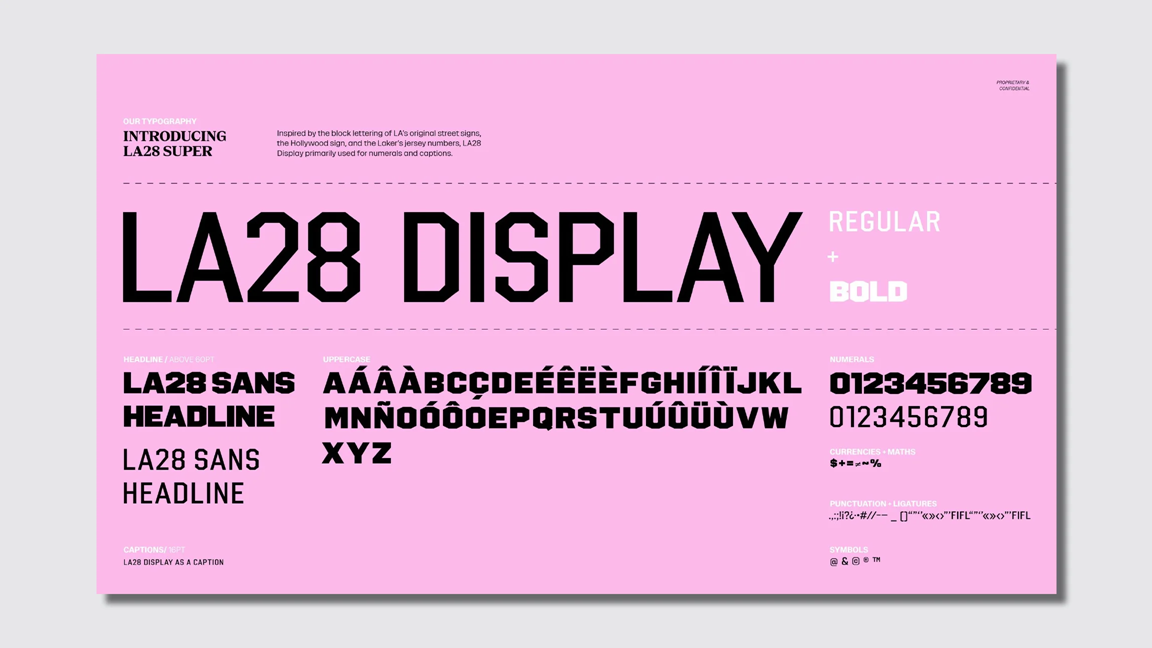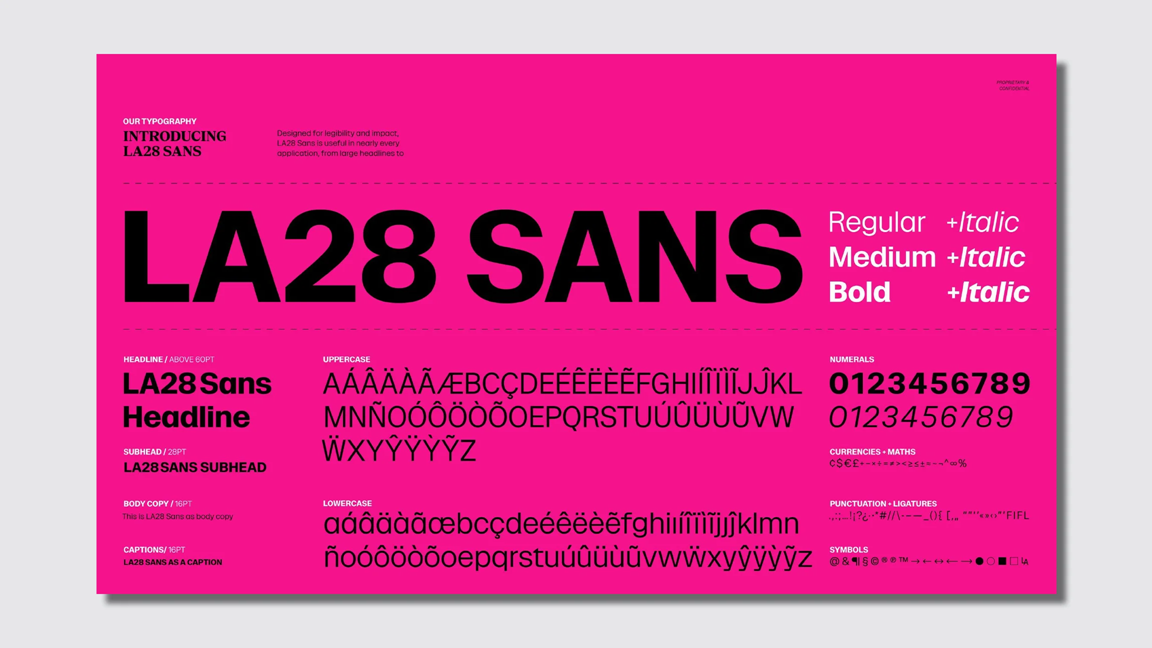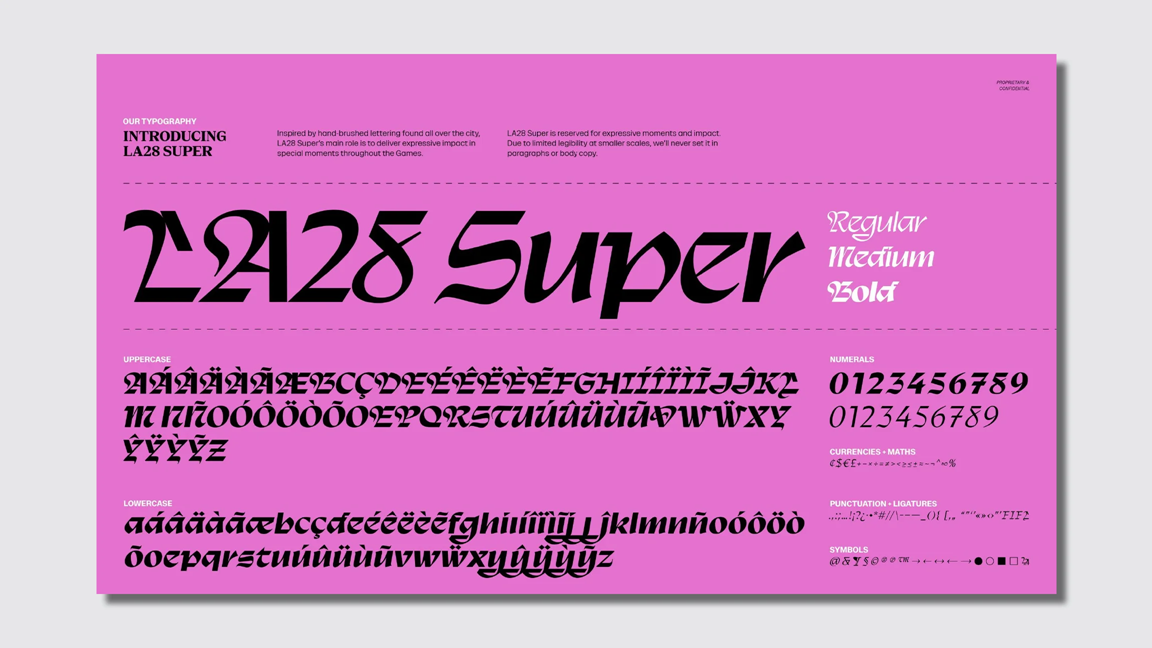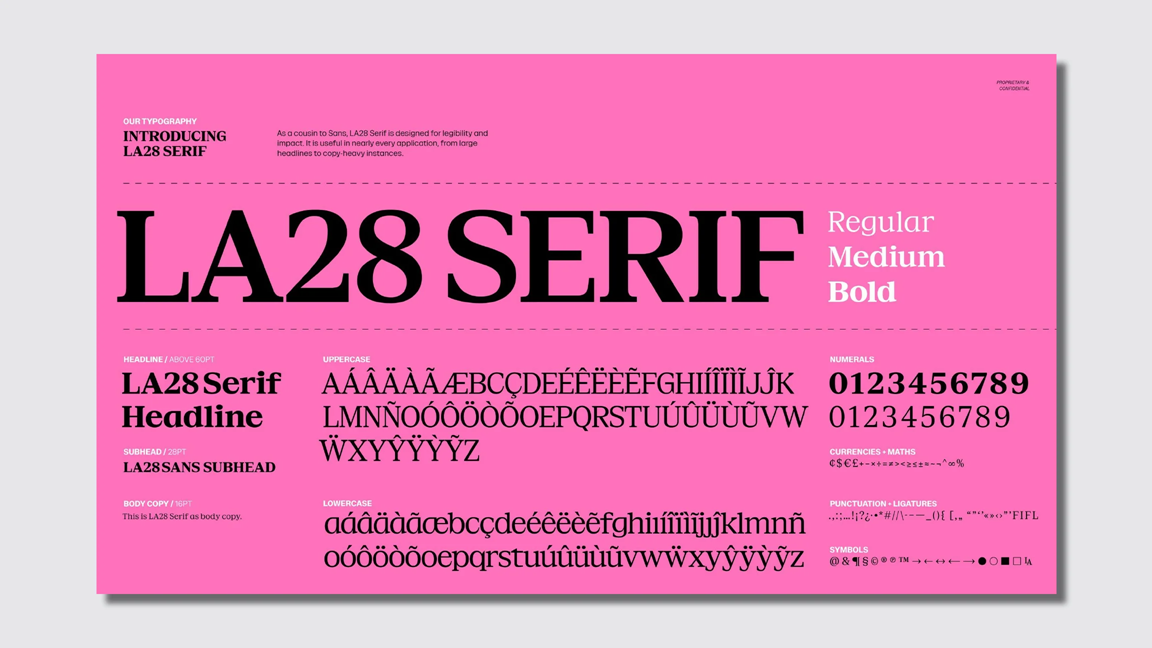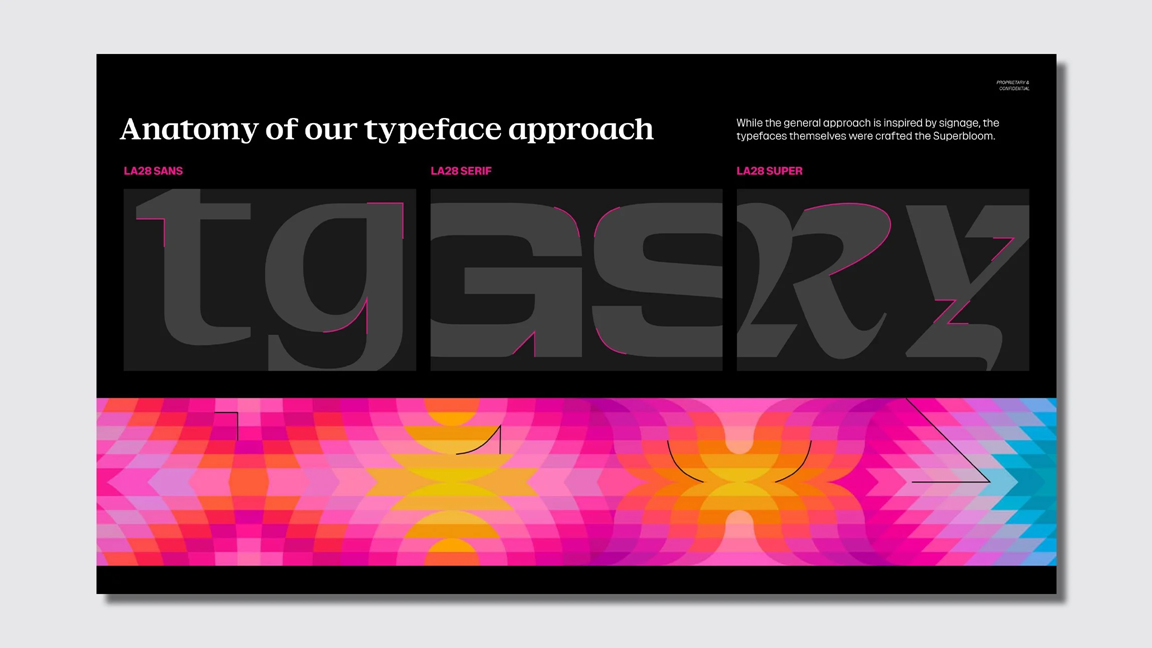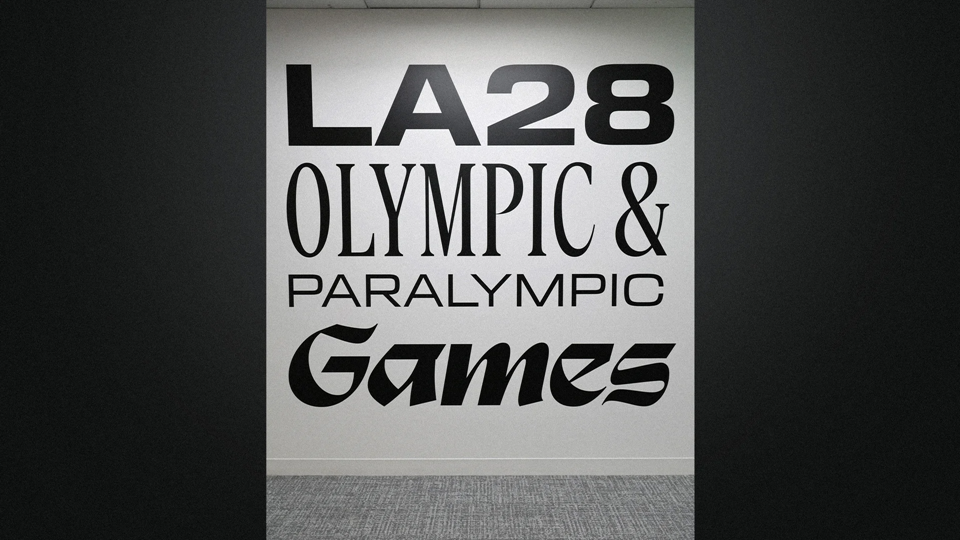
The LA28 typography is made of 4 custom fonts
The last time Los Angeles hosted the Olympic Games, designers had a relatively simple typographic system. It used the italic sans-serif Univers 66 as its logotype along with a blocky stencil-style “LA84” mark that appeared on venue and urban signage. More than 40 years later, the 2028 Los Angeles Games will use an entire bespoke four-font book.
The typeface of the 2028 Games brand and design system developed by Koto Studios is called LA28, and it’s inspired by strip mall signage and hand-painted street lettering across L.A. The typeface comes in four distinct styles, Display, Sans, Serif, and Super, and together they represent a much more eclectic approach to typography than we’re used to seeing from Olympics-related design.
“Each one has a distinct personality and purpose within the system,” Geoff Engelhardt, head of brand design for LA28, tells Fast Company. The goal with the fonts is to capture the feeling of Los Angeles rather than produce a literal depiction of it, he says. “We wanted the typography to feel like it could only belong to Los Angeles.”
LA28 Display is inspired by the block lettering of L.A.’s original city street signs, and it’s meant for things like numerals, captions, and wayfinding.
LA28 Sans is designed for clarity, legibility, and accessibility for text-heavy use cases.
Then there’s LA28 Super, which is just the opposite. A charismatic, stylized, calligraphy-style font, Super is reserved for expressive moments and large-scale impact, as in graphic collateral that previews the brand, showing a billboard that reads “Bienvenidos” (“Welcome” in Spanish). Its letterforms mix sharp angles and shapes with smooth curves and distinctive flairs.
LA28 Serif is a counterpart to Sans, a serif workhouse font for heavy copy. Both are ADA compliant, meaning they meet the accessibility requirements of the Americans With Disabilities Act.
Together the fonts create a typographic system that’s more complicated than we’ve seen for Games of decades past. But it fits the wider approach organizers have employed to form the visual identity of LA28, taking inspiration from the diversity of the city.
“There’s a whole visual culture living on the streets of Los Angeles, in the storefronts, the hand-lettered murals, the block lettering on original street signs, and we wanted to honor that rather than import something that felt foreign to the city,” says Ric Edwards, VP of brand design and executive design director for LA28.
The 1984 Los Angeles Olympics used a vibrant color palette expressed through assets like a recurring confetti pattern and venue staging. The broader look and color palette of the 2028 Games is an updated homage called Superbloom, drawn from Southern California flora and the city’s official flower, the Bird of Paradise. That same sense of expressiveness is being brought to the 2028 Games customizable logo, which replaces the A in LA28 with other graphics, and in the multi-font typography.
Past Olympics often branded themselves in a universal style built on grids; a unified, cohesive visual language; and sans-serif typefaces like Helvetica. That style was singular and could be ported over to the visual brand or logos of any other Games anywhere. Designers for forthcoming Olympics are taking a more experimental route.
While the 2002 Salt Lake City Games used the sans-serif Frutiger as its type family, the 2034 Utah Games released a logo with a distinctive typeface that built its letterform from natural shapes and Utah topography. In California, it’s about typography that’s capable of representing a city as dynamic and diverse as Los Angeles.
“It’s asking us to embrace the idea of variety as utopia,” says Charles Nix, senior executive creative director at Monotype.
“We’re living in a time of incredible typographic plenty. There’s so much variety typographically now that it’s never been like this in the history of typography,” he says. “It seems almost rational in a way that people would embrace that typographic variety and want to express it.”
To apply a four-font brand in a unified way, the LA28 type family is designed with a clear hierarchy. Each font has a distinct personality and purpose within the system. Organizers say they think of it less like a style guide and more like a musical composition, with the fonts as visual frequencies that can be mixed and layered but are always in harmony.